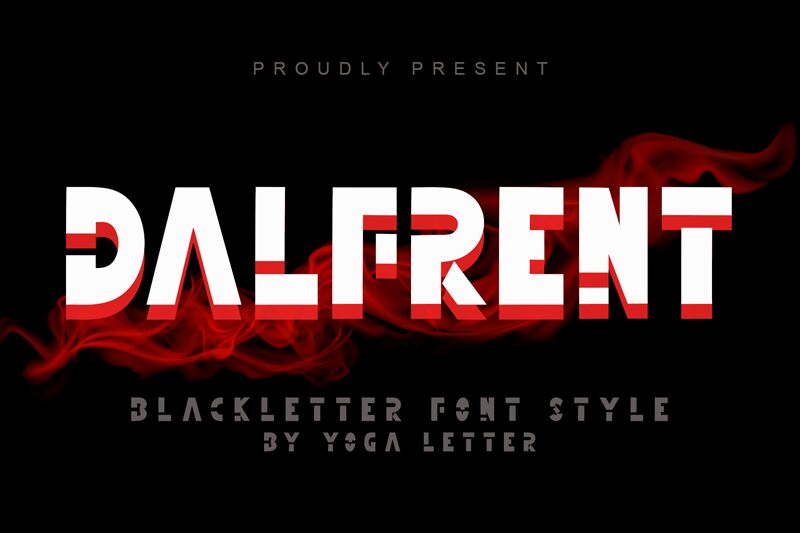
Dalfrent font designed by Yoga Letter is a free fancy font carrying a modern geometric design. The font is futuristic with contrasting elements providing a dynamic digitalized finish. Tall and elongated with high left vertical emphasis, it looks similar to Japanese characters. The font contains uppercase and lowercase letters with a selection of symbols.
Due to its technical, yet artistic style, this font is great for futuristic books, editorial designs, and magazines. It works for stationery project branding and designs like business cards, stationery design, and letterhead. Screen-based projects like UX/UI, mobile apps, desktop apps, and website designs may also find it suitable.